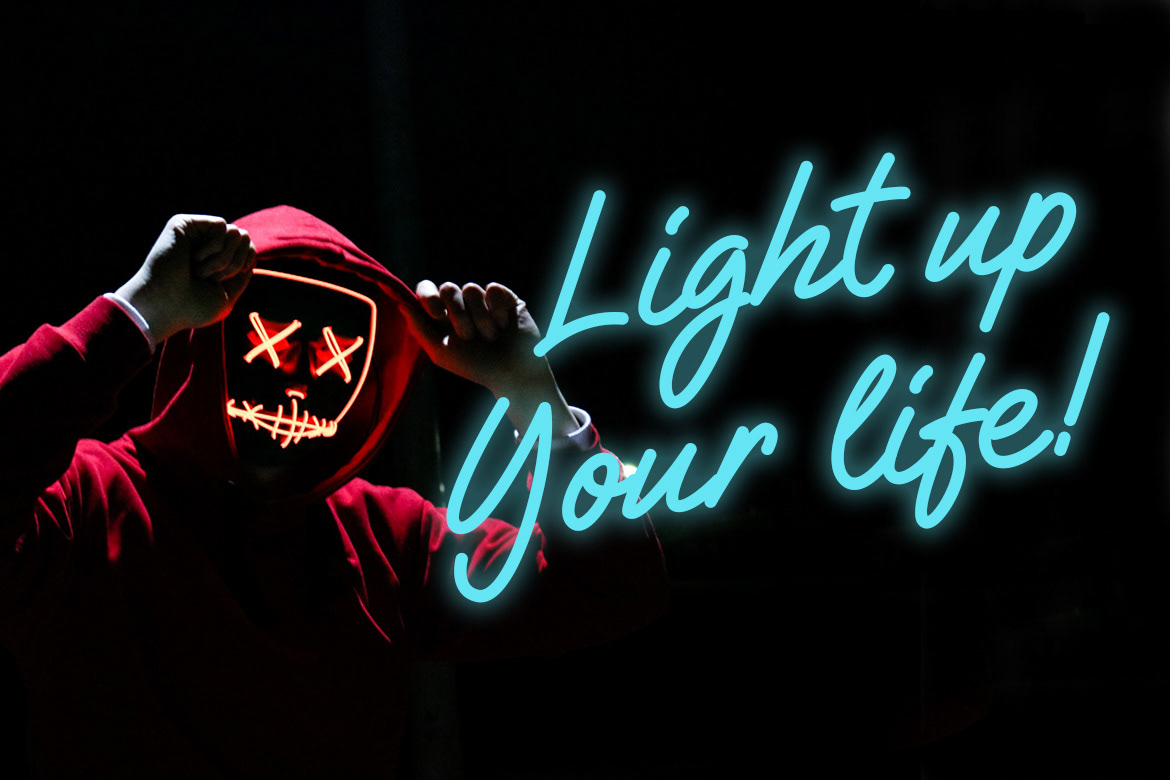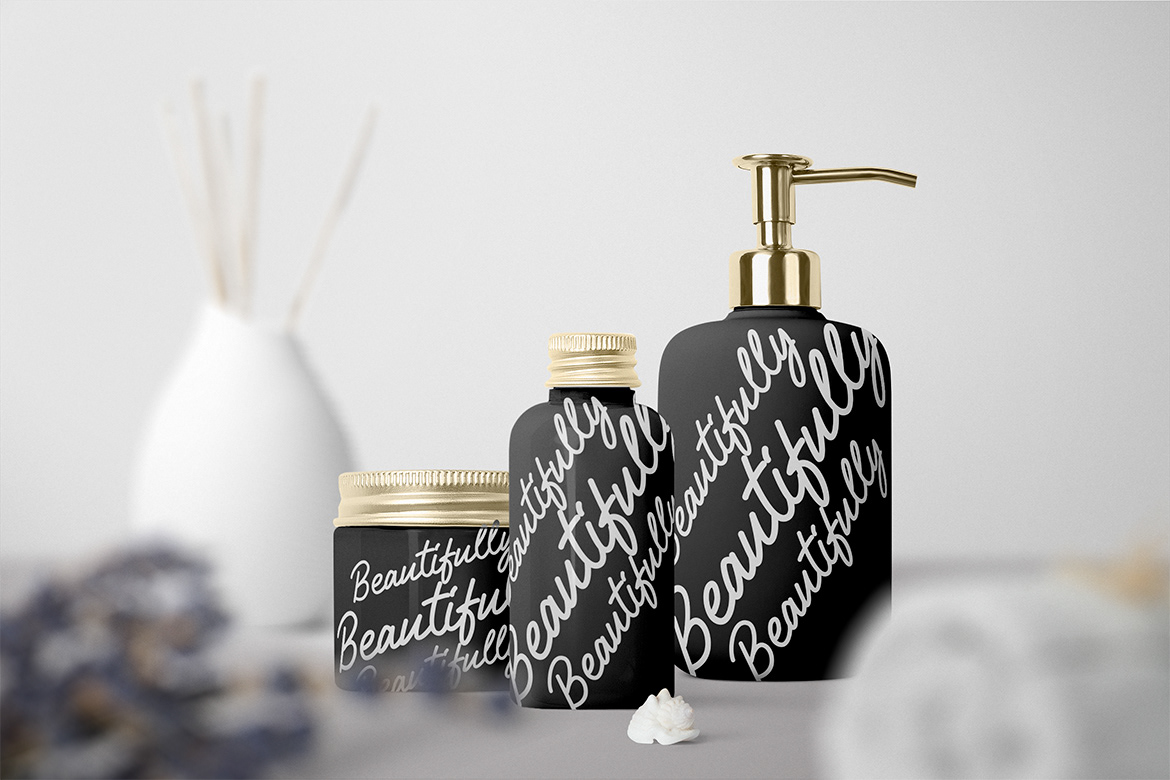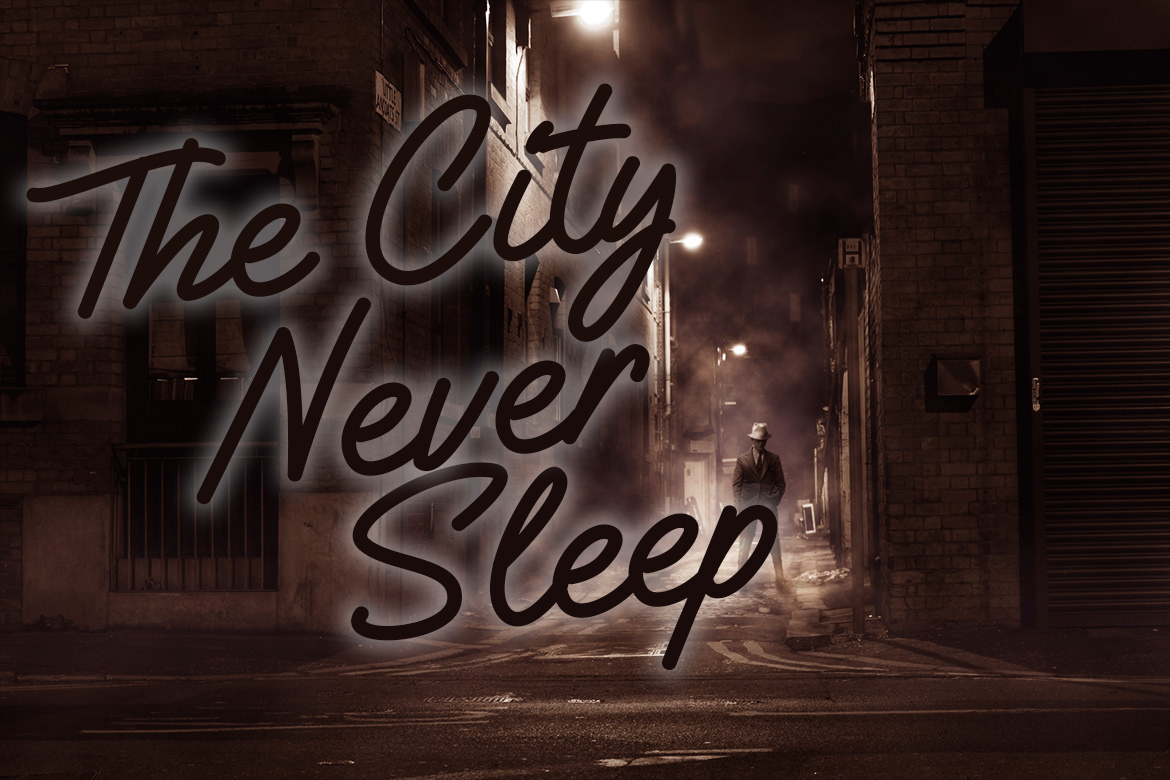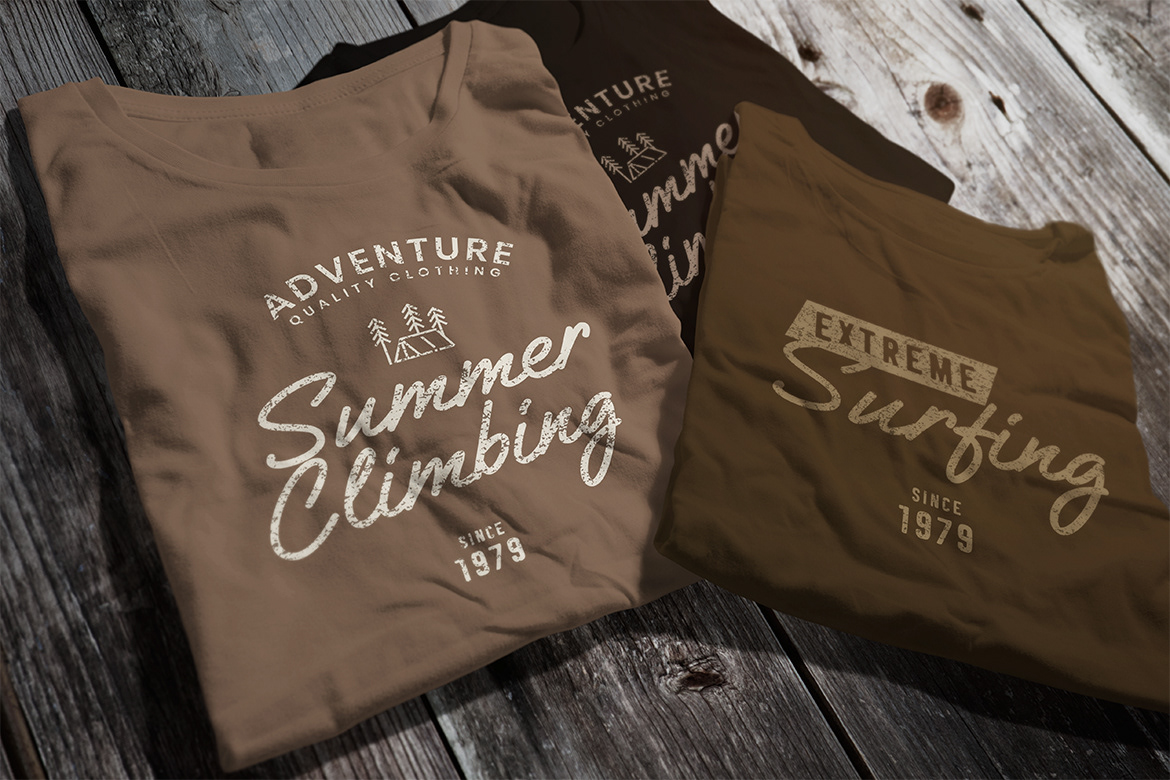
Gilligan Shutter is a sophisticated signature monoline bold collection designed by Creatype Studio from Indonesia. It’s the perfect font choice for powerful projects – watermarks, signatures, photography, logos, business cards, quotes, album covers. Free for personal and commercial use!